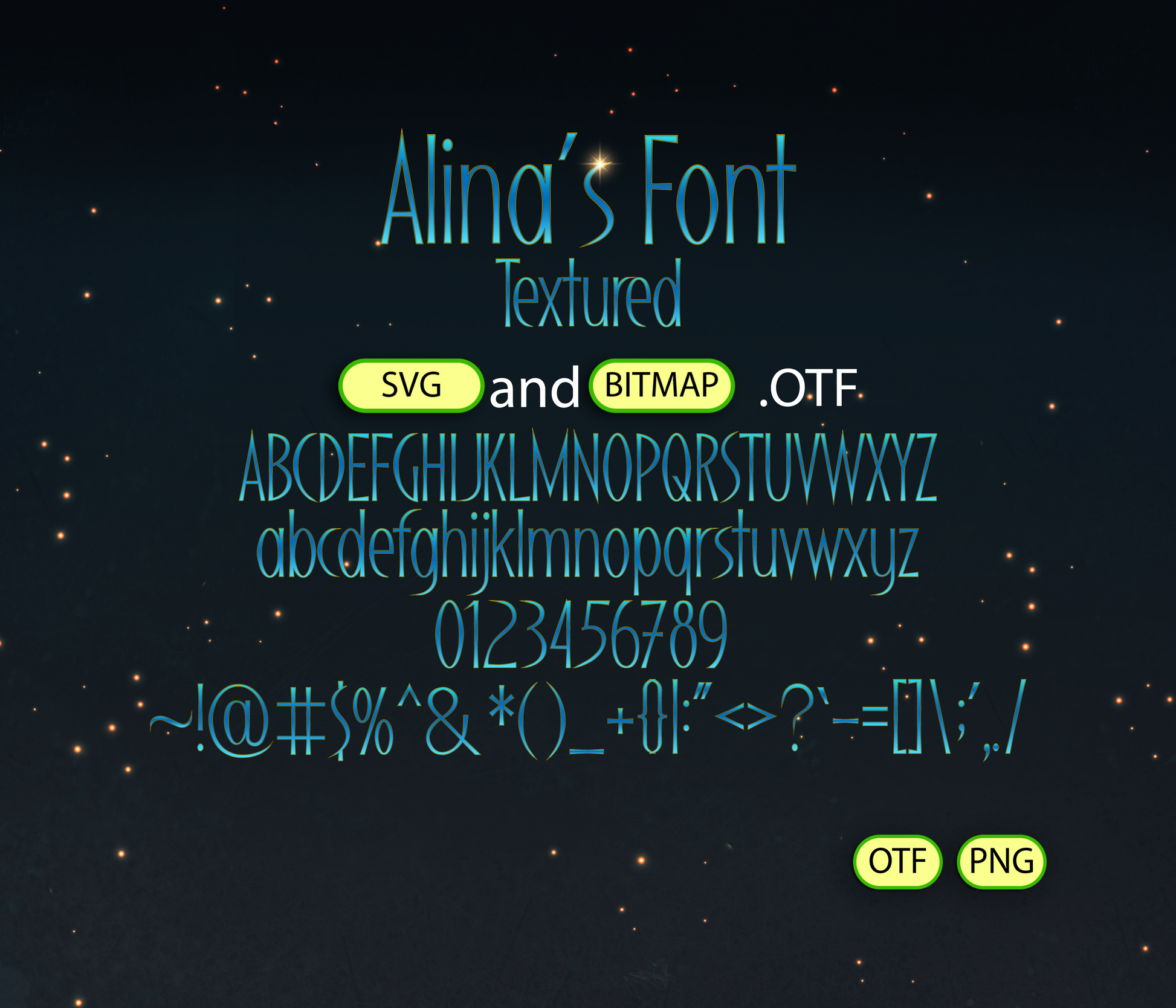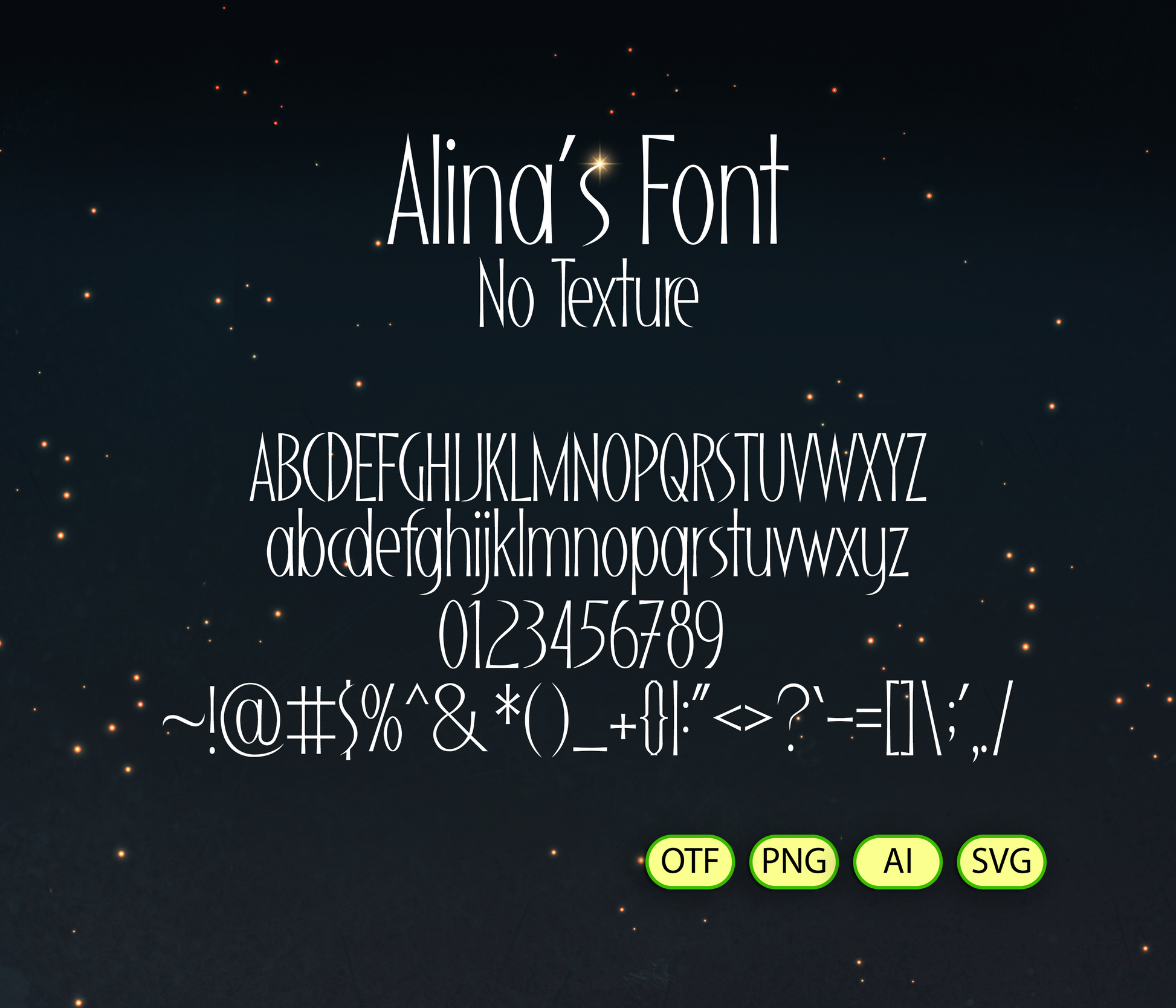
Dreamland Fantasy Font Textured
Hey there! Get ready to dive into the enchanting world of Dreamland Fantasy, the 2023 animated musical that swept us away to the magical Kingdom of Aurora. This font is inspired by the spellbinding tale of Asha, a 17-year-old girl with the heart and courage to challenge the darkness looming over her kingdom.
Why This Font is Magical
This Dreamland Fantasy font isn't just about letters. It's a complete set with upper and lower case letters, numbers, and a variety of special characters, giving you endless possibilities to bring a bit of Aurora's magic into your world. Plus, it's easy to use for both digital projects and DIY crafts, including a standard version compatible with cutting machines like Cricut, making it a go-to for crafting enthusiasts.
Why You'll Absolutely Love It
Dreamland Fantasy captured our hearts with its vibrant animation, compelling story, and unforgettable characters. This font is a way to keep the magic alive in your own creations, whether you're a fan of the film, a lover of fairy tales, or just someone who believes in the power of dreams. Let this font be your guide to a world where dreams come true and every creation is a piece of enchantment!